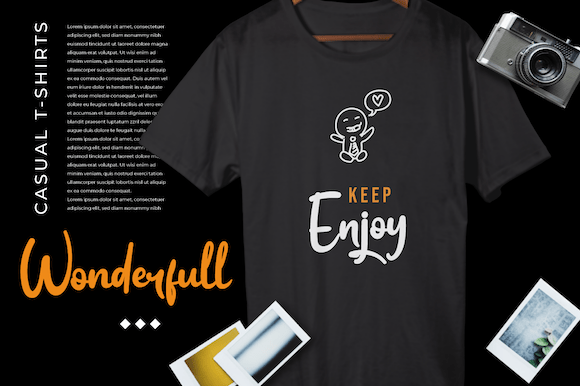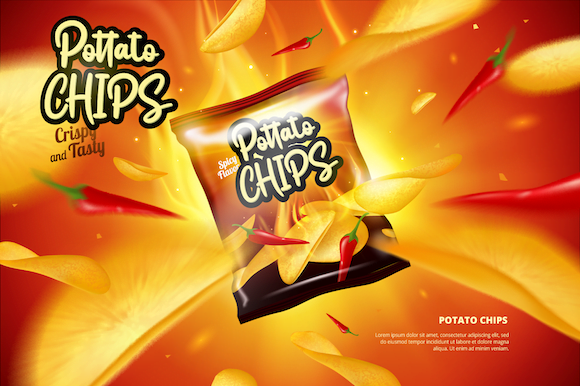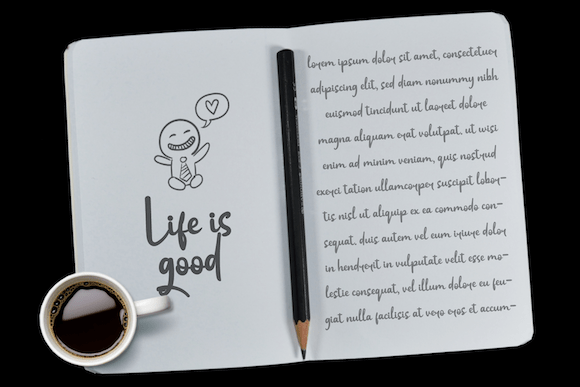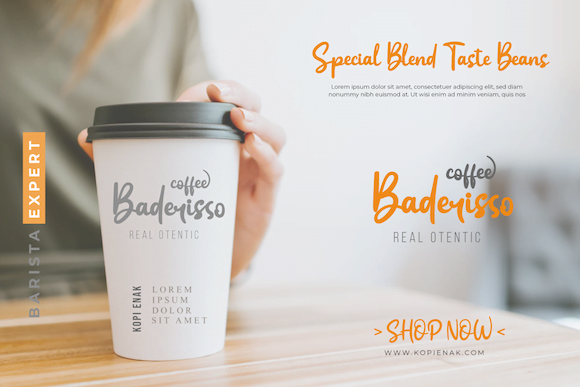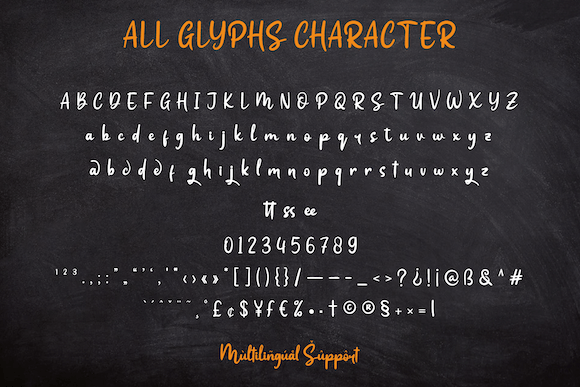
- Gerdingan – Script Handwritten Font
Gerdingan – Script Handwritten Font combines classic and modern elements to create a dynamic and expressive typeface. With bold and fluid strokes, Gerdingan delivers a strong and confident look. This font is perfect for projects requiring high visual impact, such as branding, elegant invitations, and social media content. Each letter in Gerdingan is designed to provide smooth flow, ensuring the text is readable and attention-grabbing. Its versatility allows it to be used in various design contexts, both formal and casual. Gerdingan brings a personal touch to your work, making it an ideal choice for designers seeking the perfect balance of aesthetics and functionality. With its captivating style and strong expression, Gerdingan is a font that will make your designs stand out.